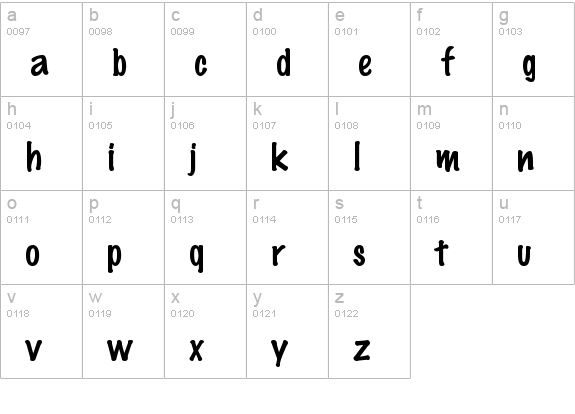
MarkingPen Regular Font Details
MarkingPen Regular is the standard, neutral variant in the MarkingPen typeface family \xE2\x80\x94 well suited to general body text, paragraphs, and standard typographic work.
MarkingPen Regular font is a versatile and stylish typeface that is perfect for adding a touch of creativity to your designs. With its smooth lines and unique brush strokes, this font captures the essence of hand-drawn lettering while maintaining a clean and professional appearance. This font is ideal for a wide range of design projects, including logos, advertisements, posters, and more. Its bold and dynamic letterforms make a bold statement, while its subtle imperfections lend a sense of authenticity and charm. One of the best things about MarkingPen Regular font is that it is free to download. You can easily access this font at FontsMarket.com, where it is available for instant download. This means that you can start using this font in your projects right away, without having to worry about any additional costs. Whether you are a professional designer or a beginner, MarkingPen Regular font is a valuable addition to your font library. Its versatility and accessibility make it a go-to choice for designers of all levels of expertise. So why wait? Start exploring the endless possibilities of MarkingPen Regular font today and bring your designs to life with this free and freely available font.